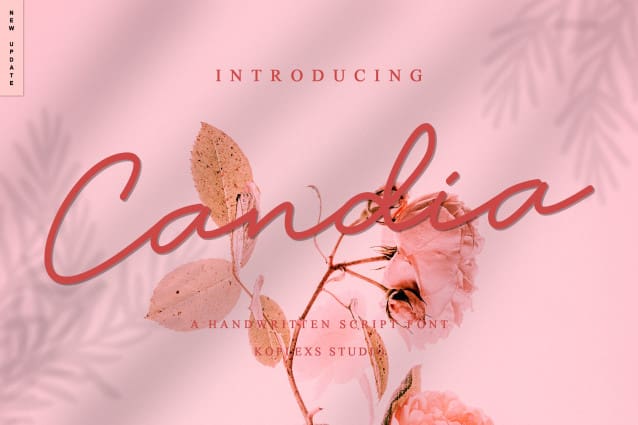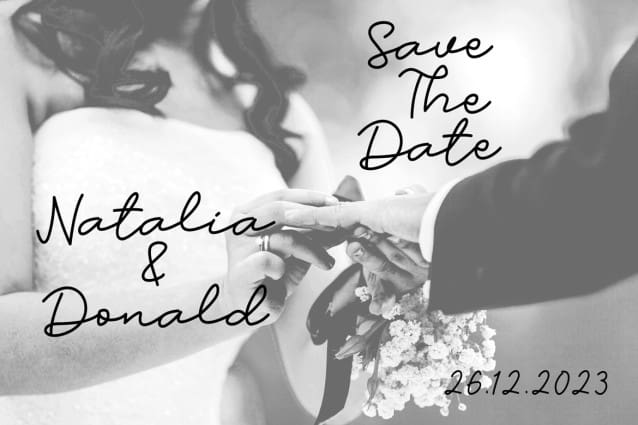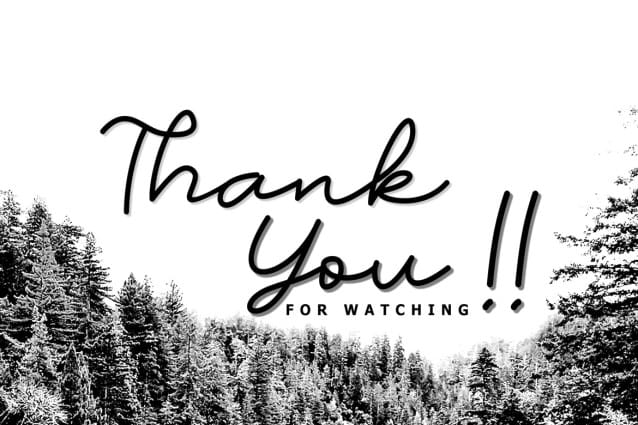
Candia Handwritten Typeface
Candia Handwritten Typeface a new modern & fresh script with a handwritten and script style make this font looks elegant, natural, stylish and perfect for any awesome projects that need handwriting taste.
Candia Sript Font would perfect for photography, watermark, social media posts, advertisements, logos & branding, invitation, product designs, label, stationery, wedding designs, product packaging, special events or anything that need handwriting taste.